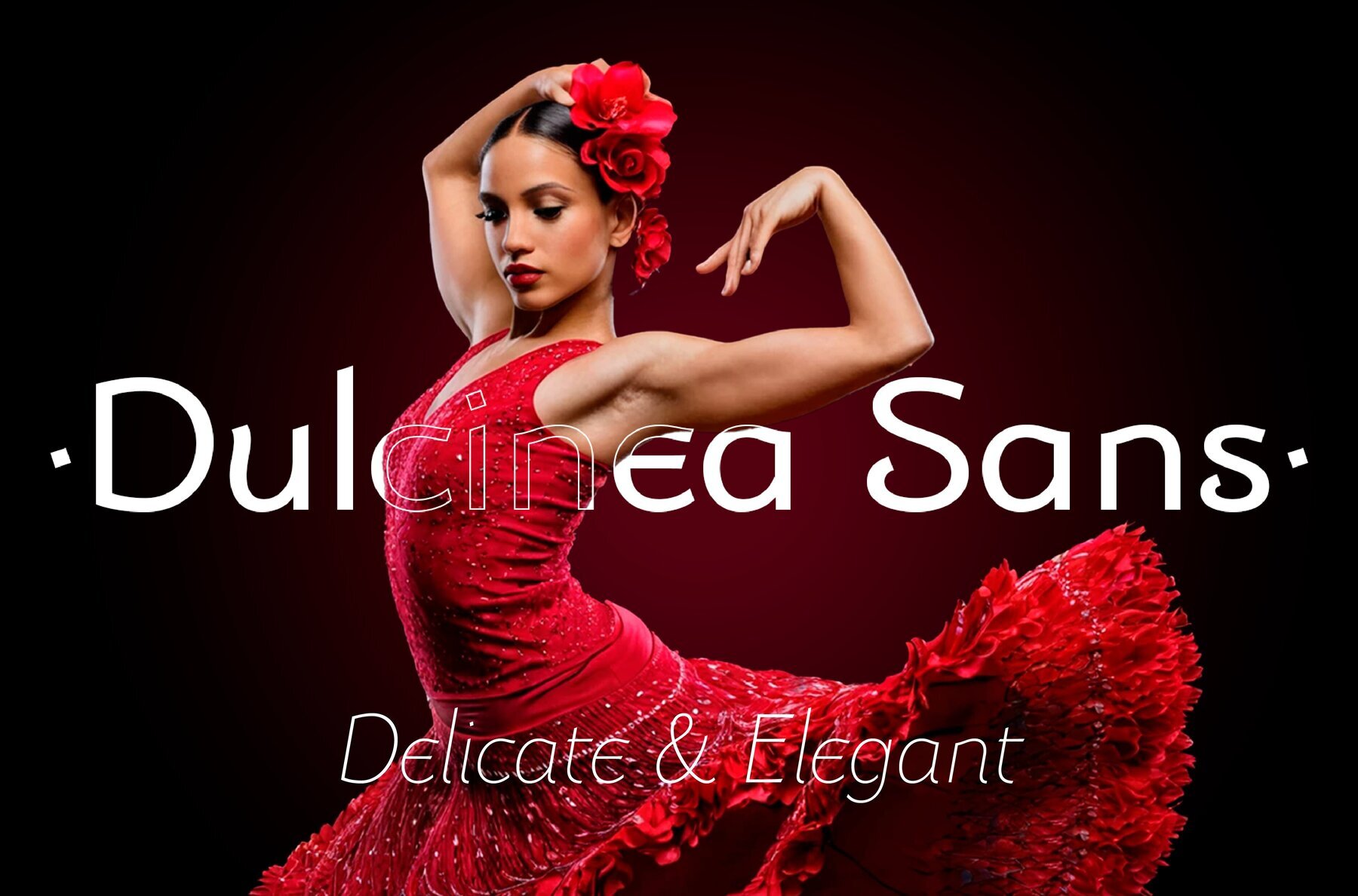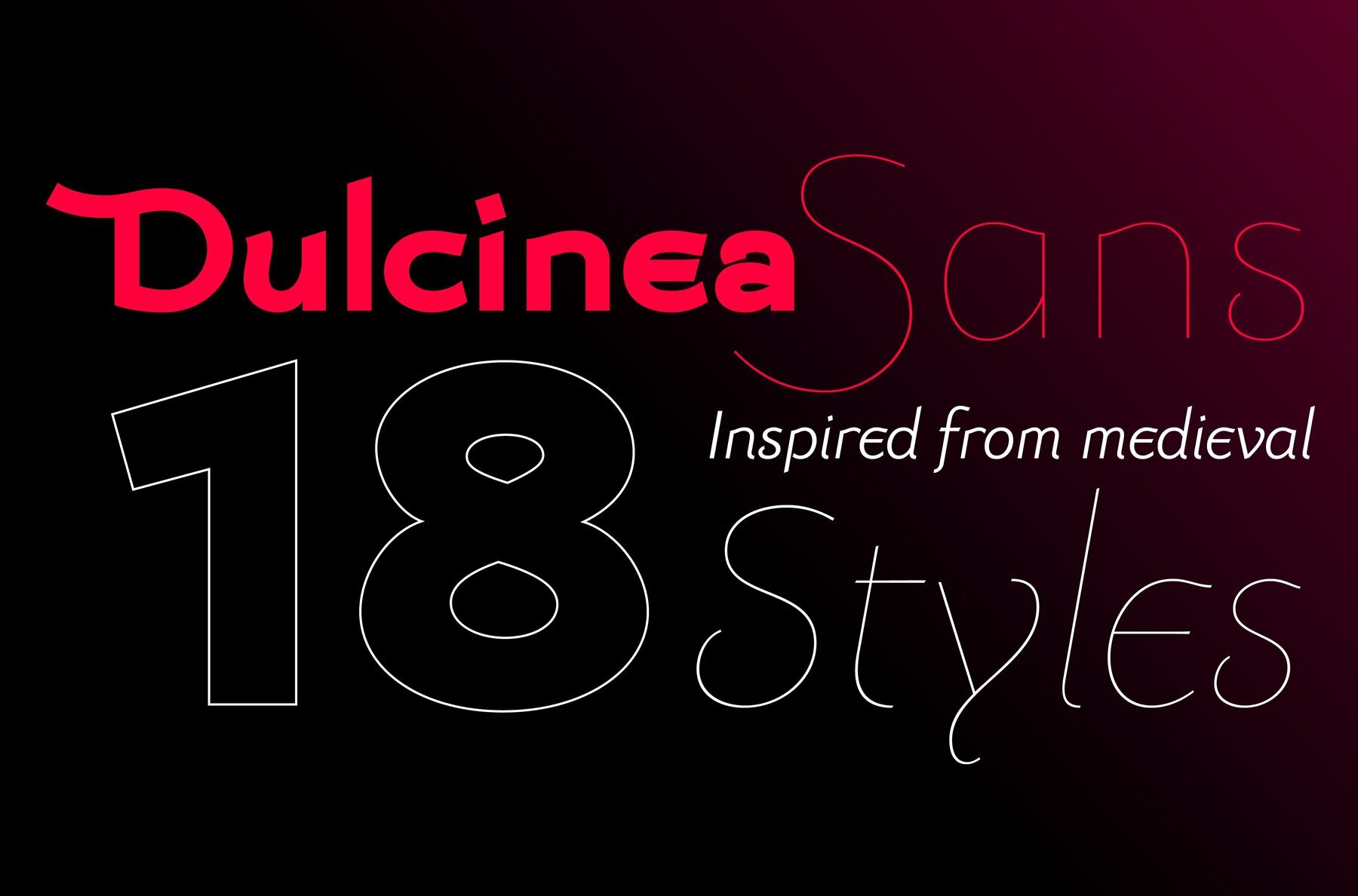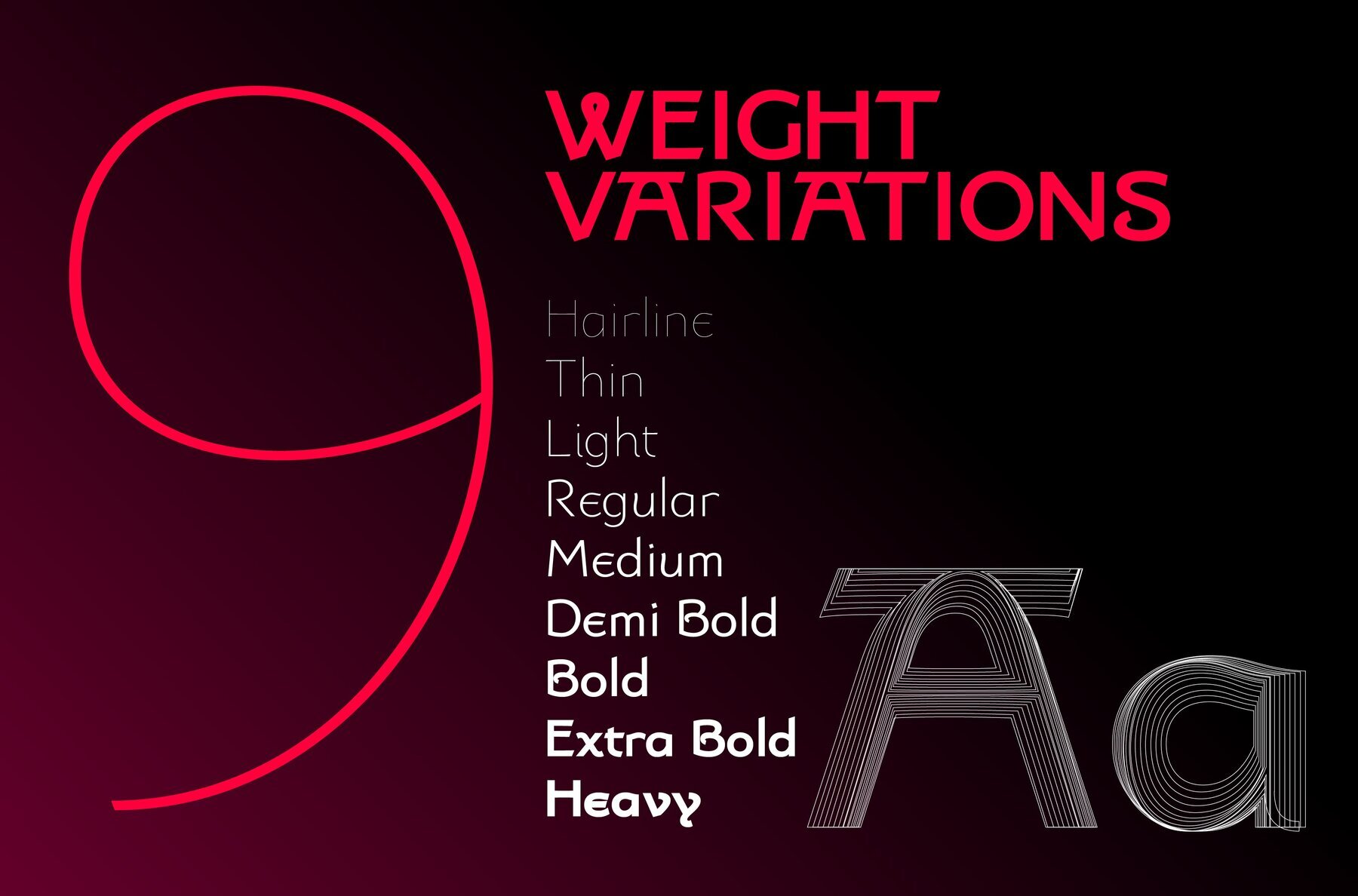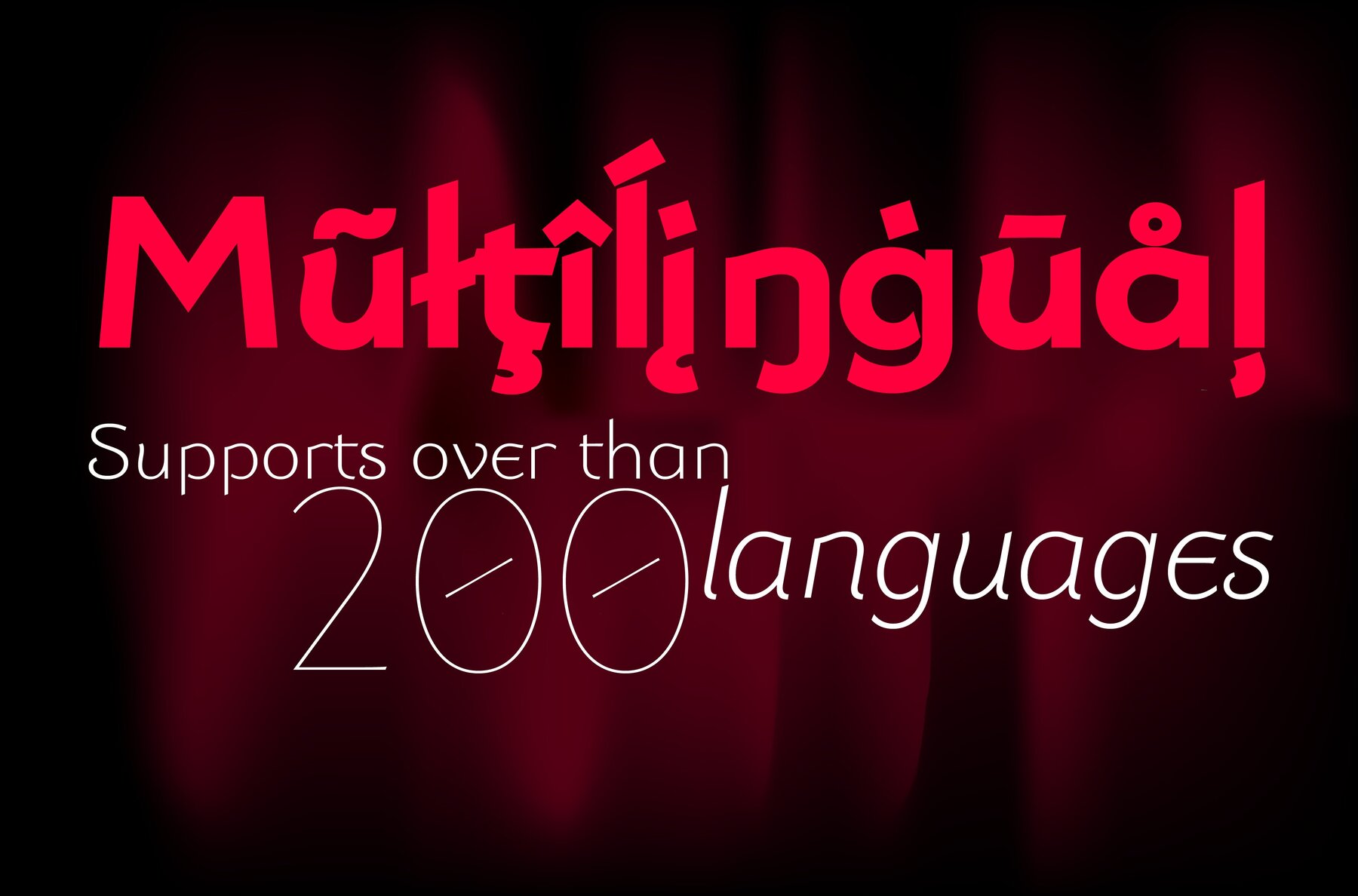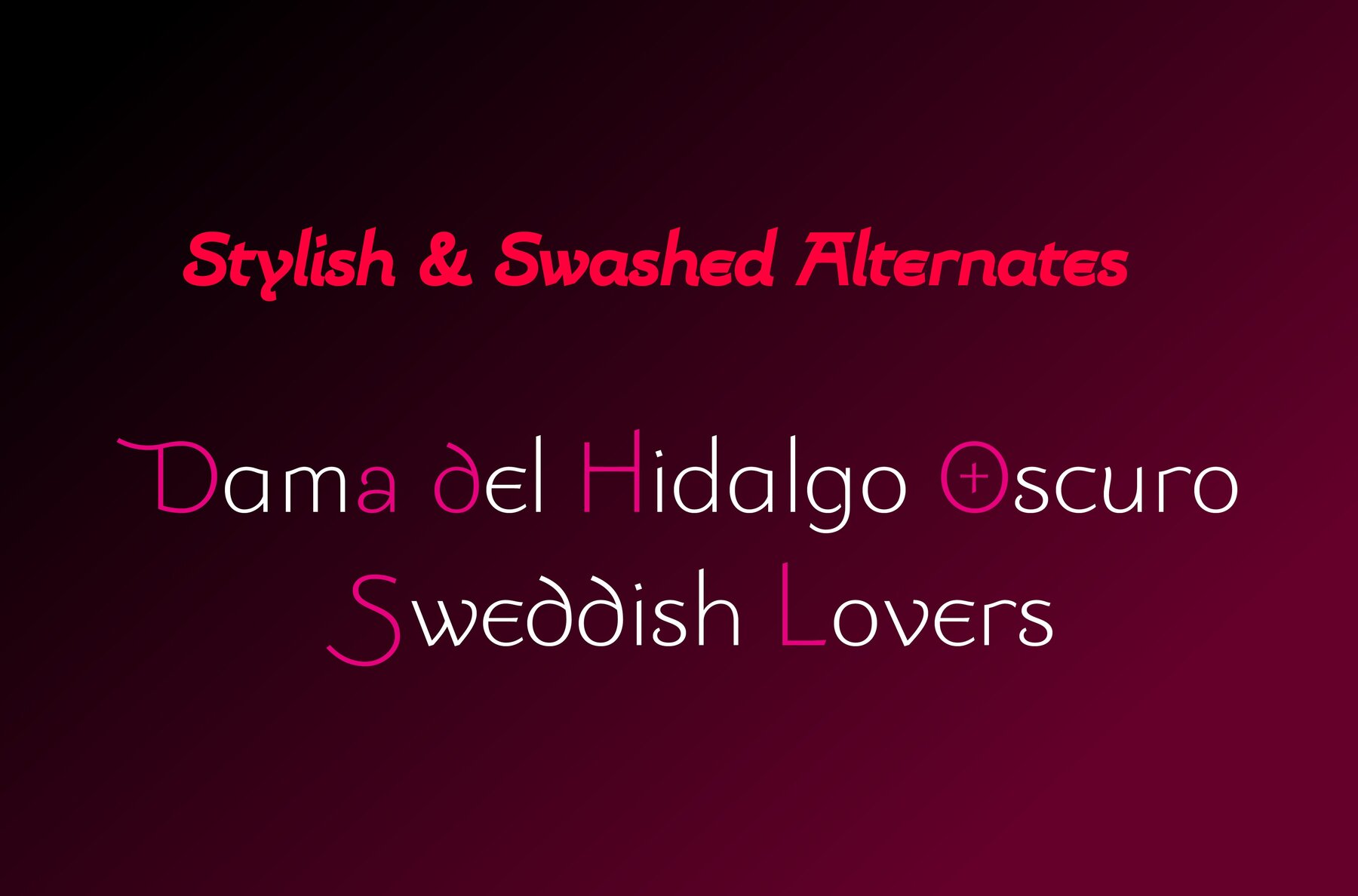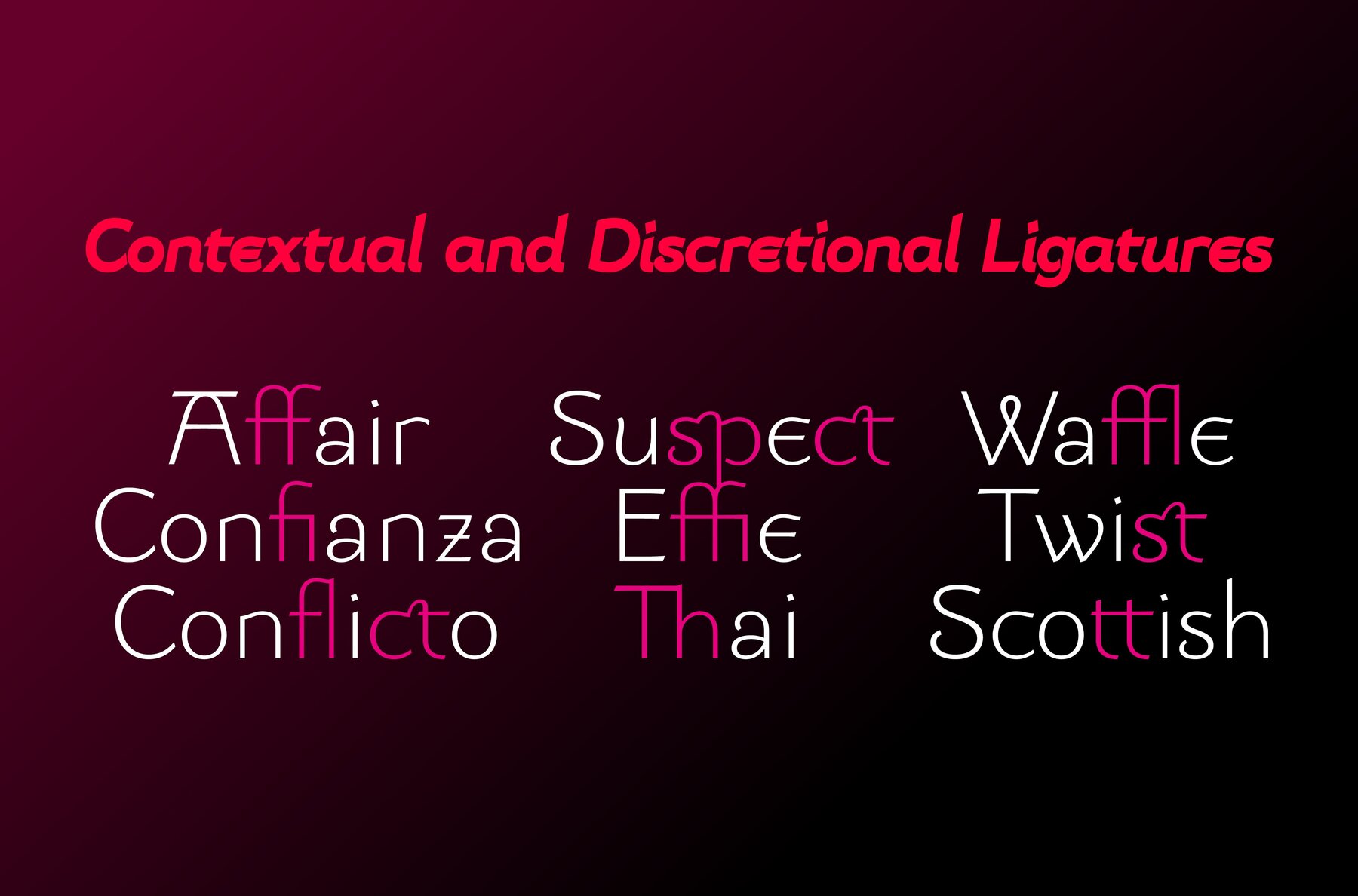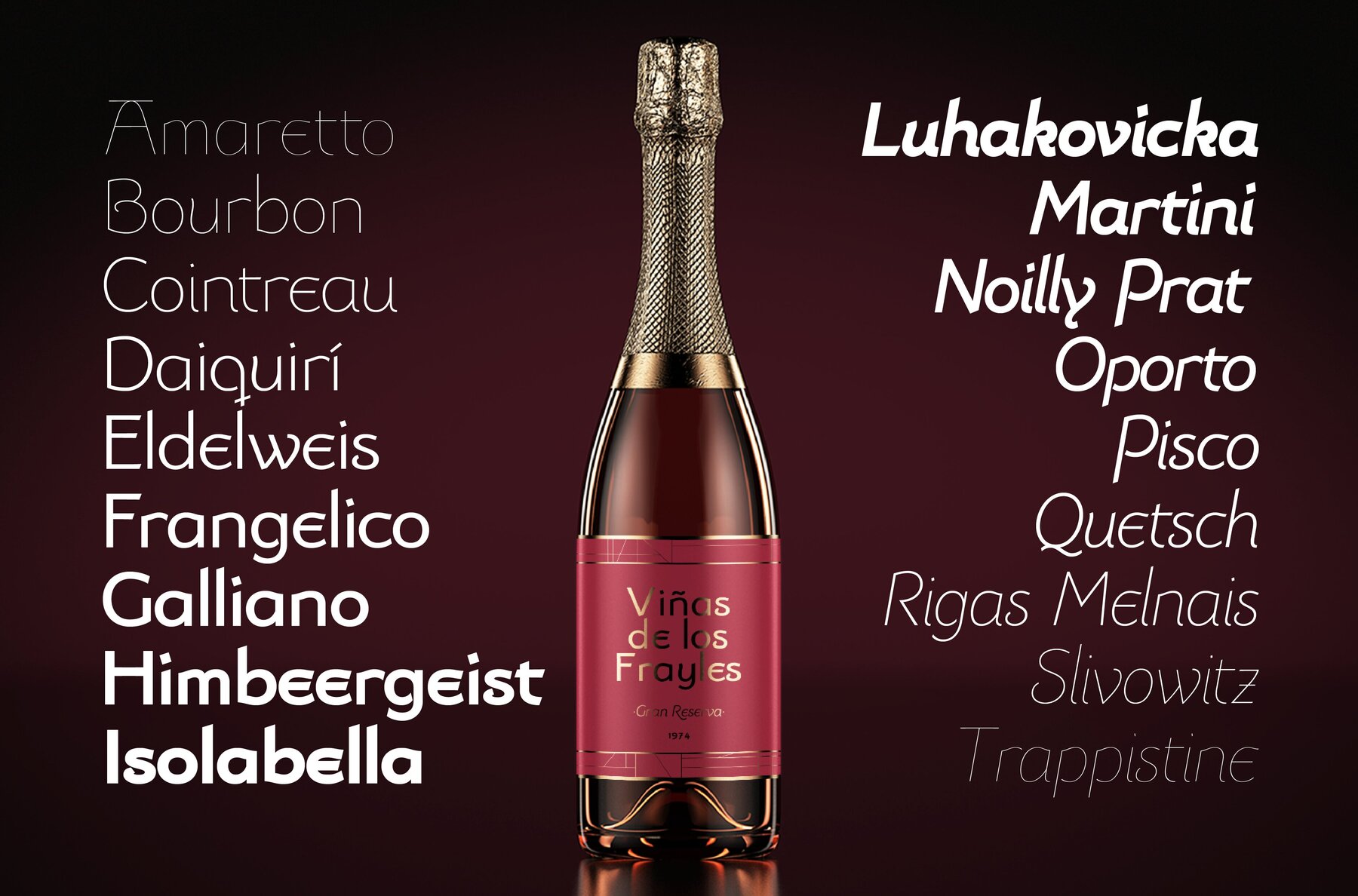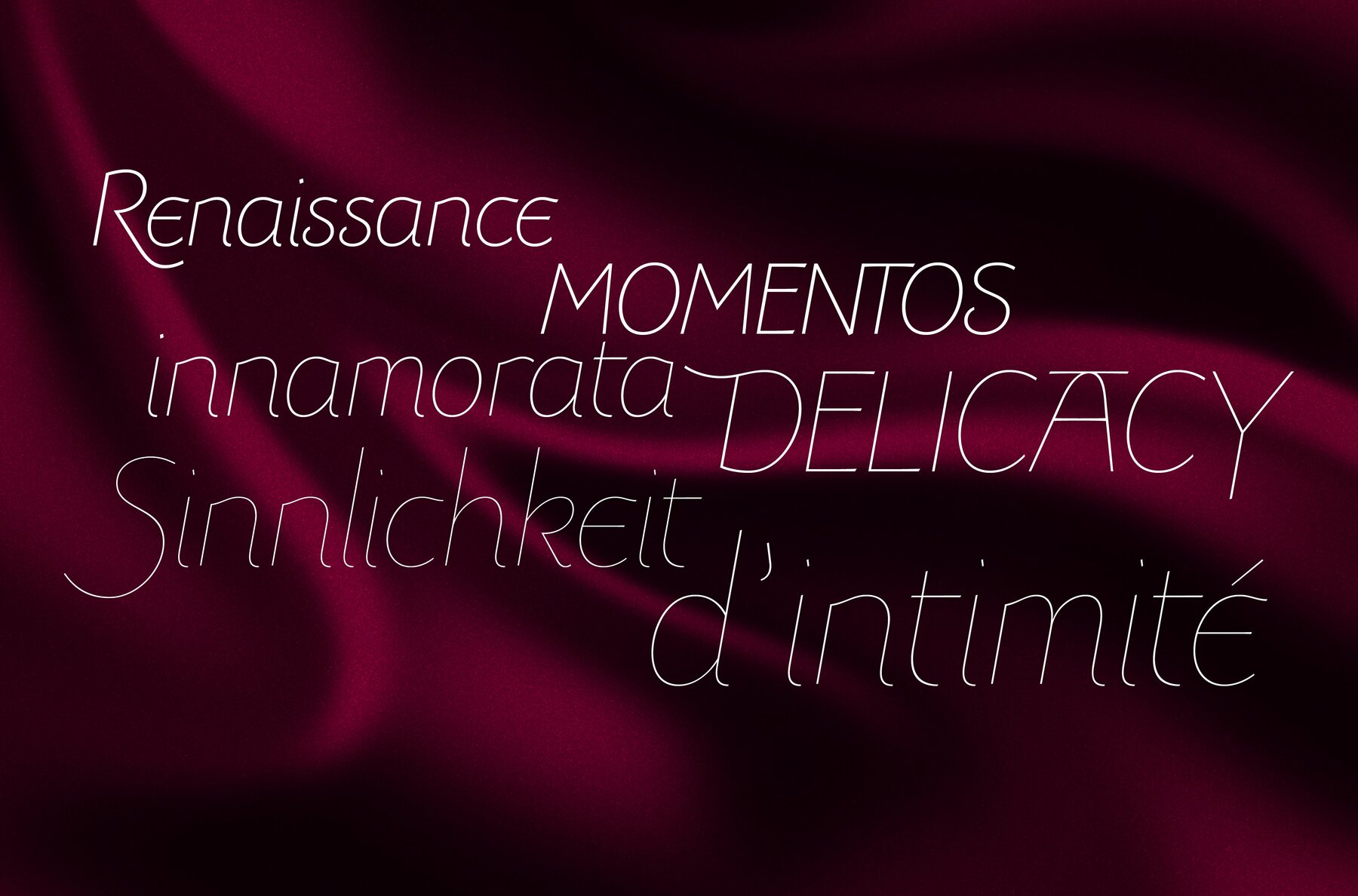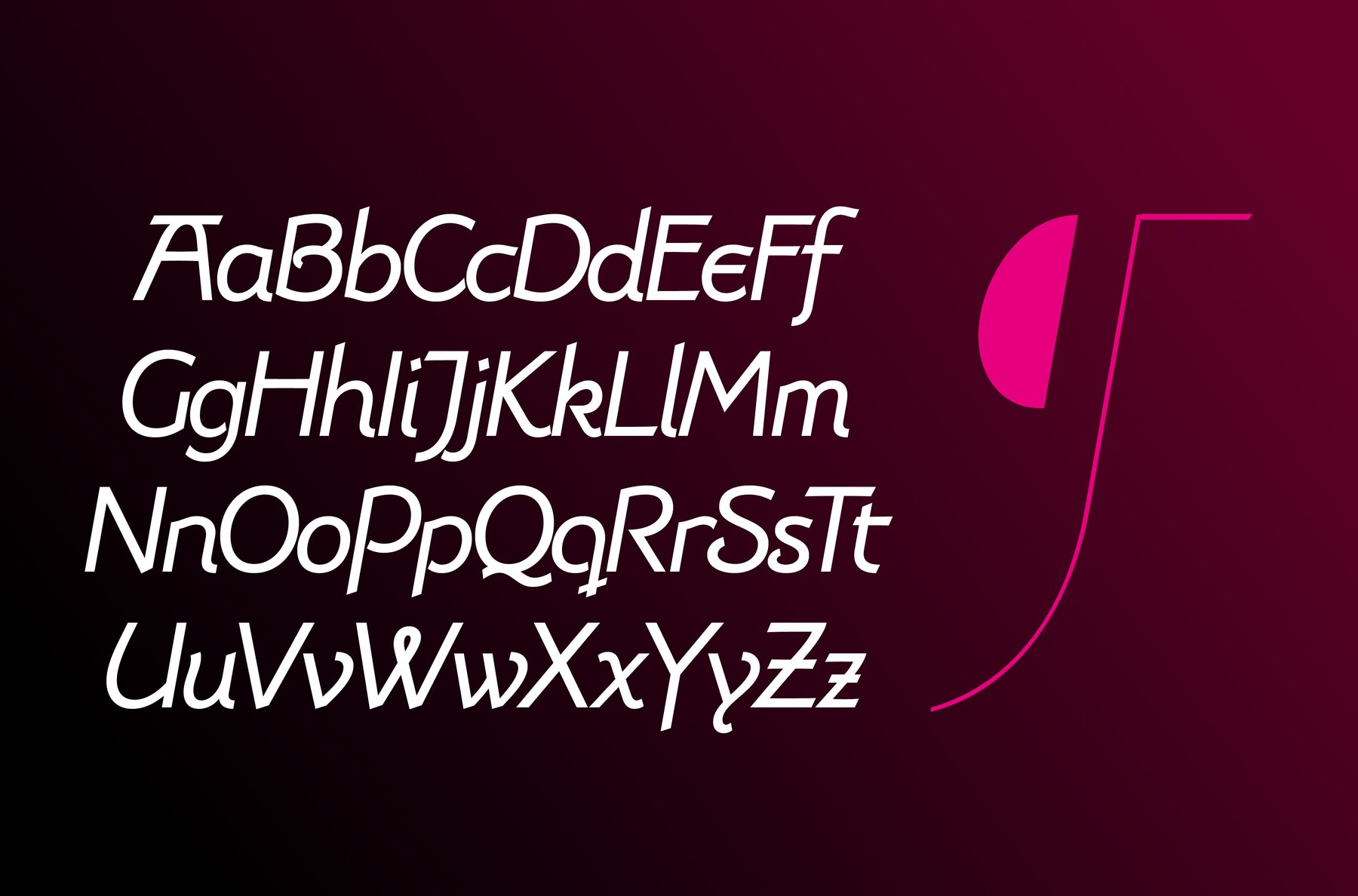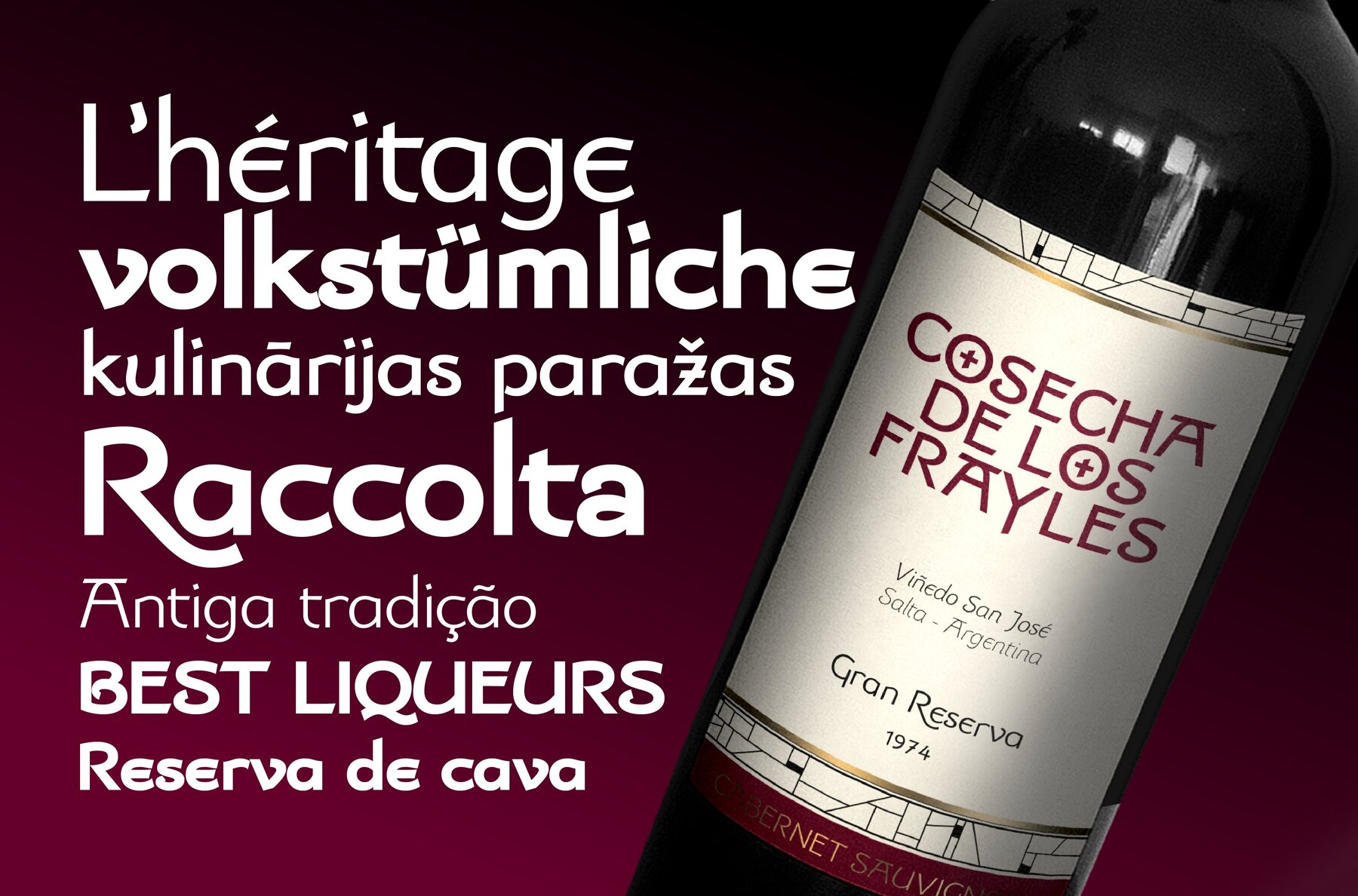
Dulcinea Sans Font
This is the sans version of the Dulcinea Serif project, whose creative concept is to merge two historical moments in the form and style of writing. On the one hand the uncial calligraphy, and on the other hand the Roman serif that was established as the universal standard for continuous text fonts at the time. By eliminating the serif elements of its sister font Dulcinea Serif, it results in a very interesting merged combination that prints quite versatility, originality, delicacy and elegance. Typeface family with a wide variety of weights, from Hairline to Heavy and its corresponding italic version. Designed in terms of its functionality as a title font, it can be versatile in the composition of short texts. It includes some extended range glyphs such as various Caps swashes and style alternatives for uppercase and lowercase, standard and discretionary ligatures, old numerals and other OpenType features. With a complete set of diacritics, it provides coverage and range for more than 200 Latin-based languages.